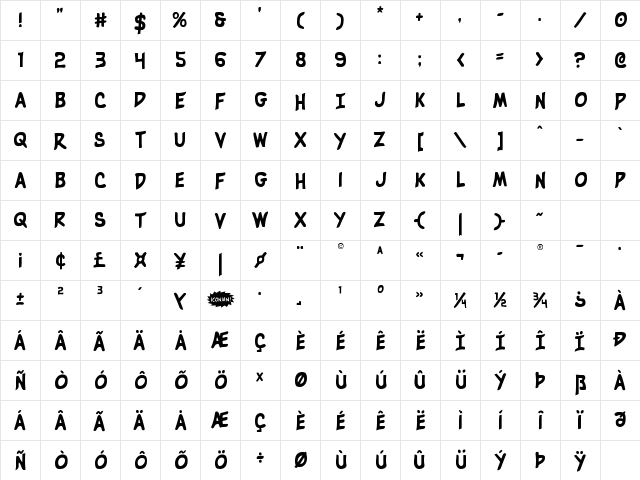
Complete Villain Team-Up Spiked Regular glyph index. Displaying only characters natively supported by Villain Team-Up Spiked Regular font.
Villain Team-Up Spiked is a composed and adaptable typeface that performs quietly and consistently across a wide range of design contexts.